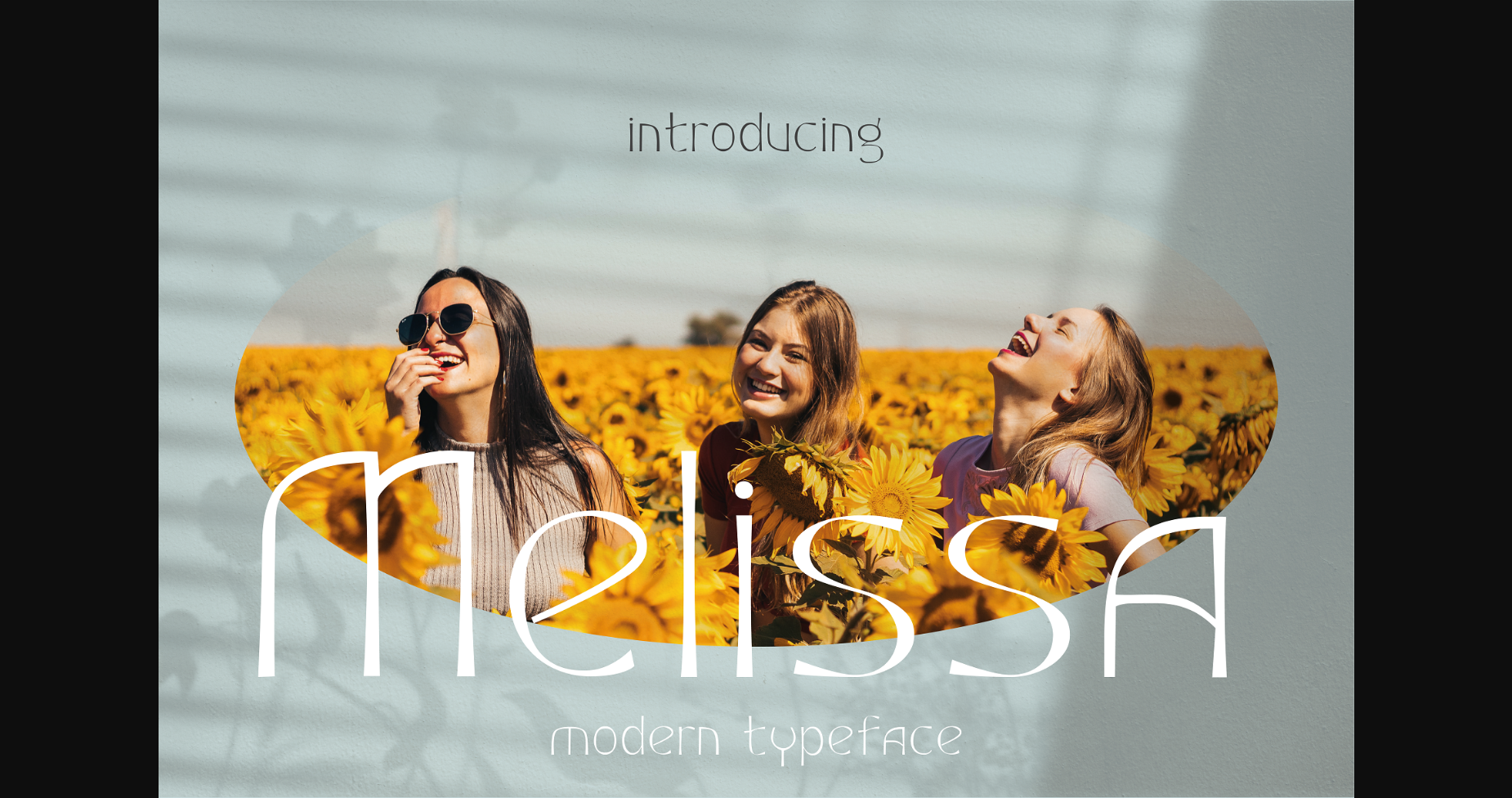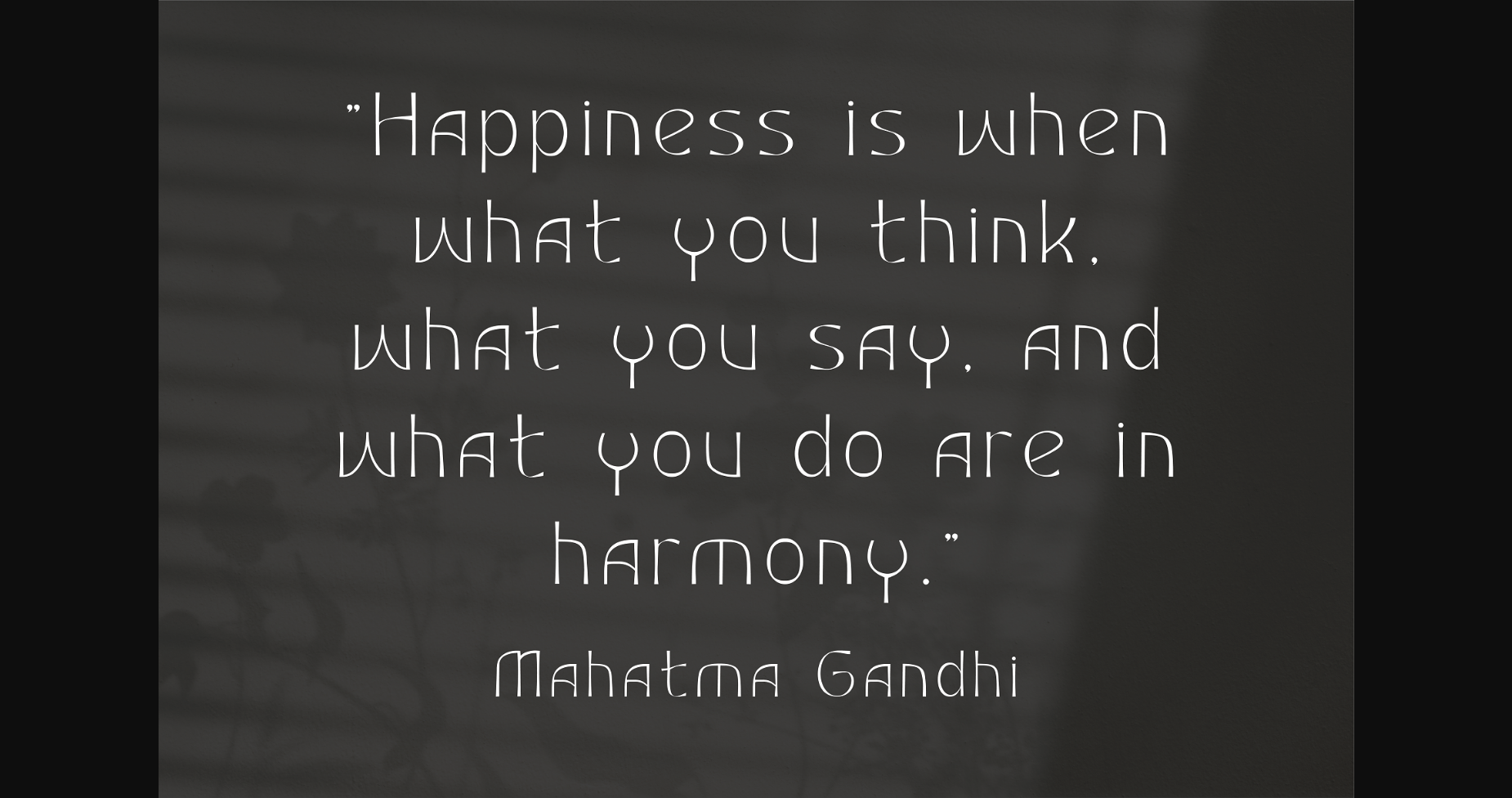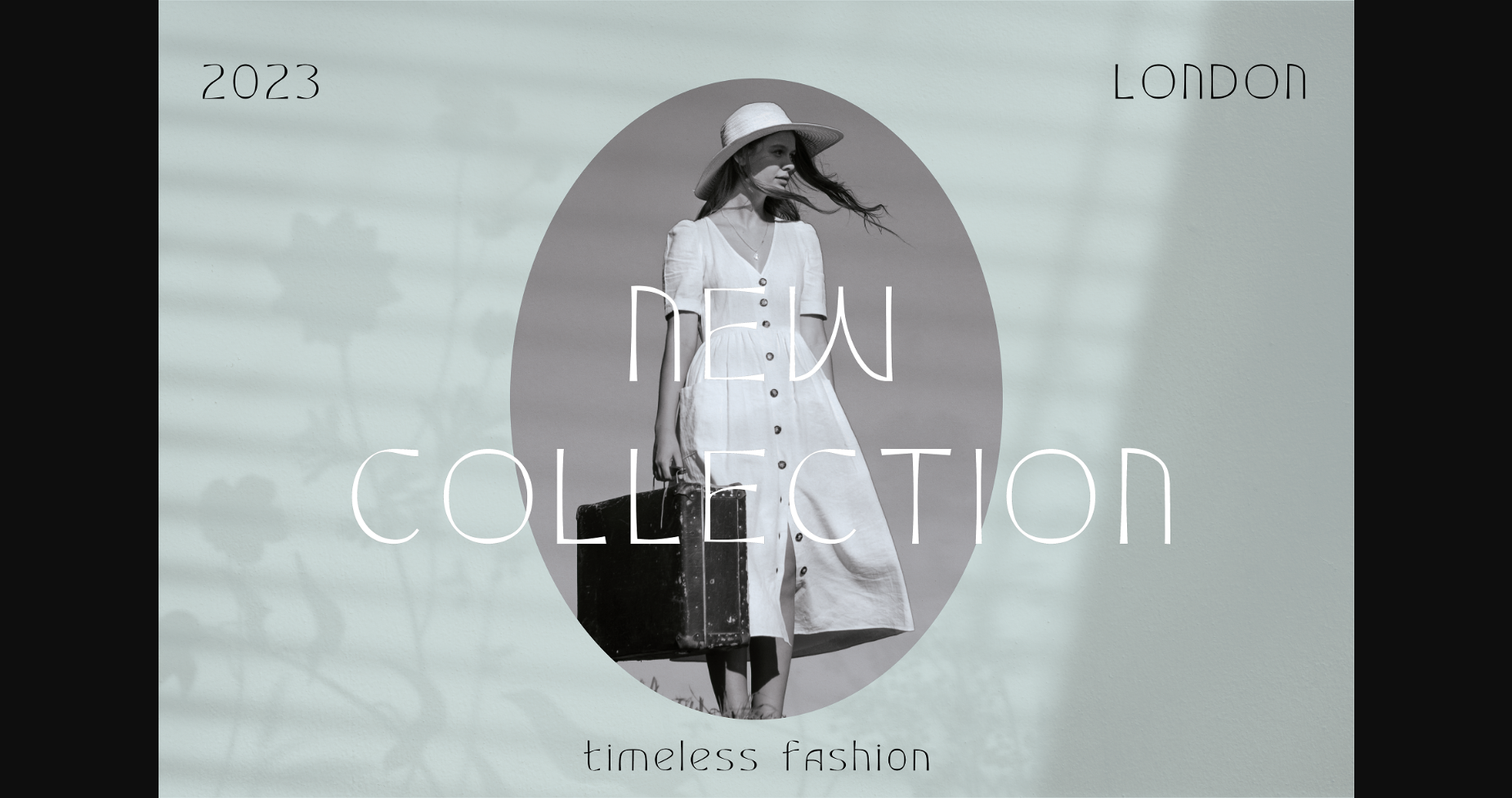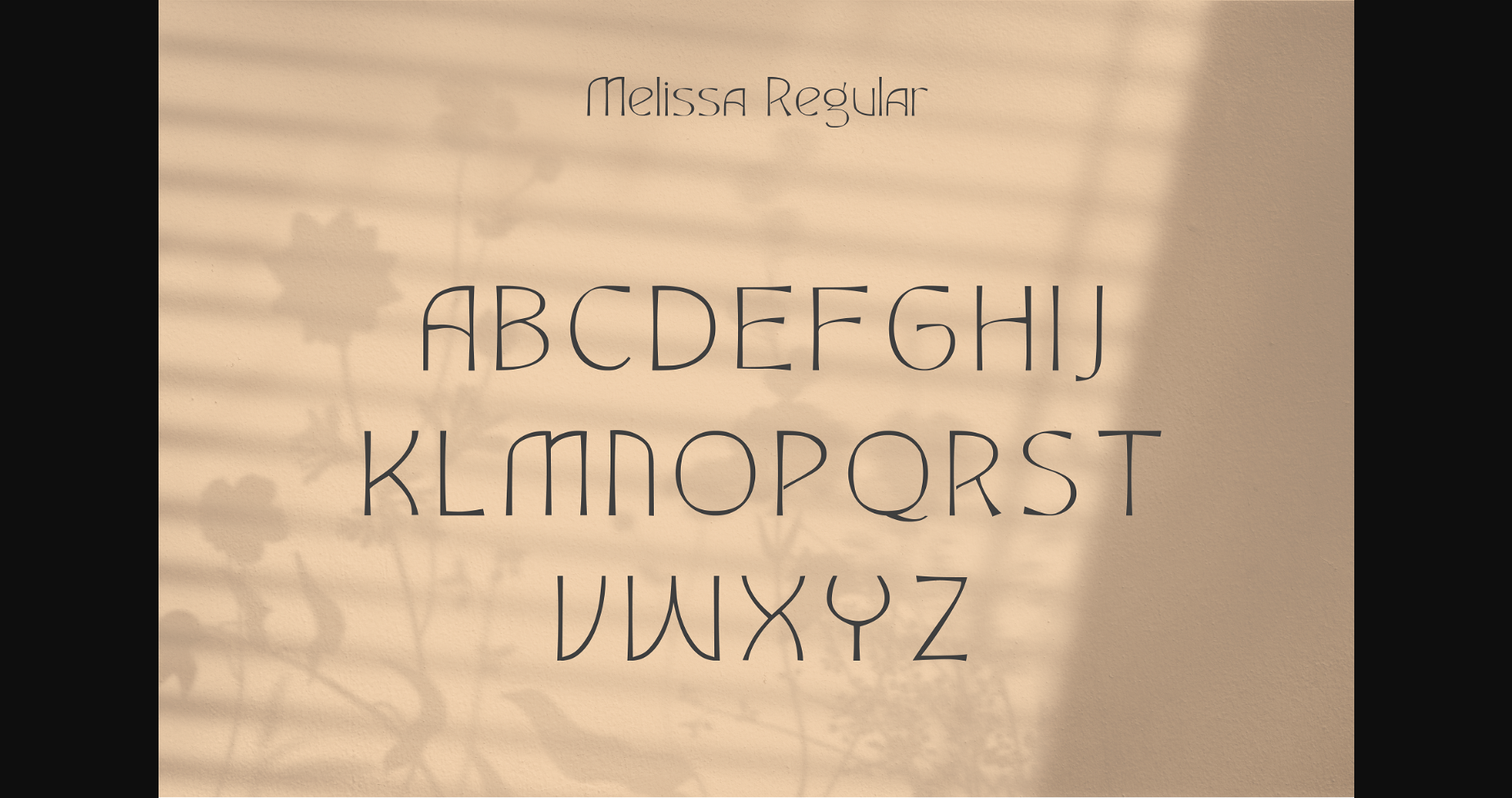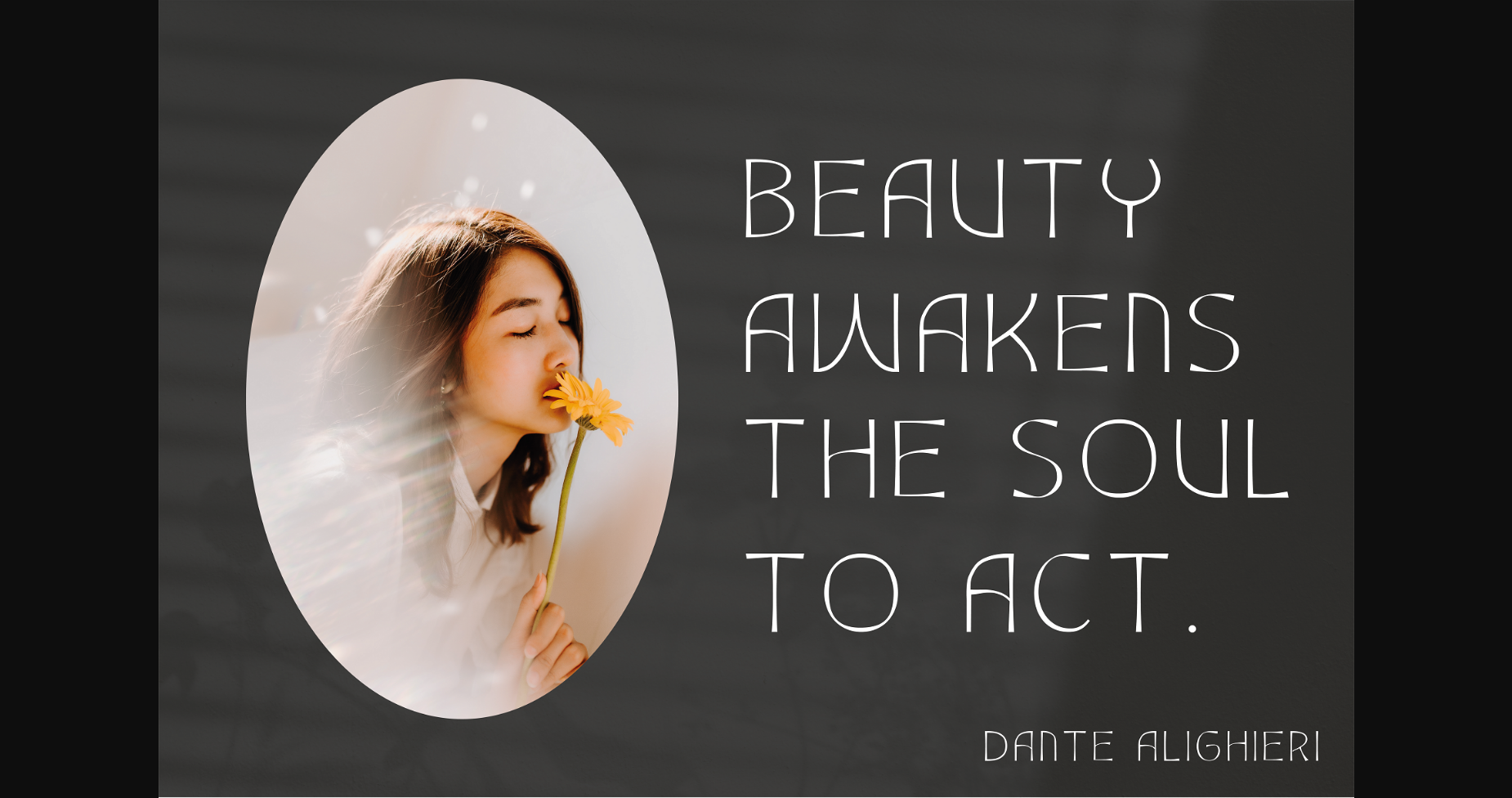
About Fashion Elegant Beautiful Timeless Moder Font
Melissa is an elegant and feminine typeface that exudes modern sophistication and refined style. Its graceful curves and clean lines are perfect for creating designs that are both luxurious and inviting, making it an ideal choice for use in beauty, cosmetics, fashion, web design, and more.
Each letter is crafted with care, adding a touch of handcrafted artistry to your projects. It’s as if each letter is a brush stroke, creating a picture of effortless beauty and timeless grace. With Melissa, you can create designs that are as unforgettable and enchanting.